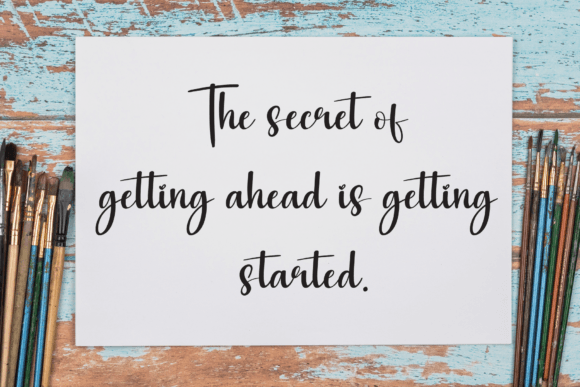
Valentine Stories Font: A Timeless and Elegant Handwritten Font
Are you looking for a font that can add a touch of elegance and romance to your designs? Look no further than Valentine Stories Font, a beautiful flowing handwritten font that is perfect for creating spectacular designs. In this article, we’ll take a closer look at Valentine Stories Font, its features, and how you can use it to create stunning designs that will leave a lasting impression.
What is Valentine Stories Font?
Valentine Stories Font is a type of handwritten font that is designed to mimic the flow and elegance of handwritten script. It is a unique and modern font that is perfect for a variety of design projects, including wedding invitations, romantic getaways, and other special occasions. The font is characterized by its elegant touch, making it a great choice for designers who want to add a touch of sophistication to their designs.
Benefits of Using Valentine Stories Font
There are many benefits to using Valentine Stories Font in your designs. Here are just a few:
- Elegant and Sophisticated: Valentine Stories Font has an incredibly distinct and timeless style that is perfect for creating elegant and sophisticated designs.
- Unique and Creative: The font’s flowing handwritten style makes it a great choice for designers who want to create unique and creative designs that stand out from the crowd.
- Versatile: Valentine Stories Font can be used for a variety of design projects, including wedding invitations, romantic getaways, and other special occasions.
- Easy to Read: The font is easy to read, making it perfect for designs that require a lot of text, such as wedding invitations and romantic messages.
Key Features of Valentine Stories Font
Here are some of the key features of Valentine Stories Font:
- Flowing Handwritten Style: The font has a beautiful flowing handwritten style that is perfect for creating elegant and sophisticated designs.
- Elegant Touch: The font has an elegant touch that makes it perfect for designs that require a touch of sophistication.
- Unique and Creative: The font’s unique and creative style makes it a great choice for designers who want to create designs that stand out from the crowd.
- Support for Multiple Languages: The font supports multiple languages, making it perfect for designers who work with clients from all over the world.
Design Tips for Using Valentine Stories Font
Here are some design tips for using Valentine Stories Font:
- Use it for Wedding Invitations: Valentine Stories Font is perfect for wedding invitations and other romantic designs.
- Pair it with Other Fonts: The font pairs well with other fonts, making it easy to create unique and creative designs.
- Use it for Headings and Titles: The font is perfect for headings and titles, making it a great choice for designers who want to add a touch of elegance to their designs.
- Experiment with Different Colors: The font looks great in a variety of colors, so don’t be afraid to experiment and find the perfect color for your design.
Font Pairing Suggestions
Here are some font pairing suggestions for Valentine Stories Font:
- Open Sans: Open Sans is a clean and modern font that pairs well with Valentine Stories Font.
- Lato: Lato is a elegant and sophisticated font that pairs well with Valentine Stories Font.
- Merriweather: Merriweather is a classic font that pairs well with Valentine Stories Font.
Valentine Stories Font is a beautiful flowing handwritten font that is perfect for creating elegant and sophisticated designs. Its unique and creative style makes it a great choice for designers who want to add a touch of romance and elegance to their designs. With its flowing handwritten style, elegant touch, and versatility, Valentine Stories Font is a great choice for a variety of design projects.